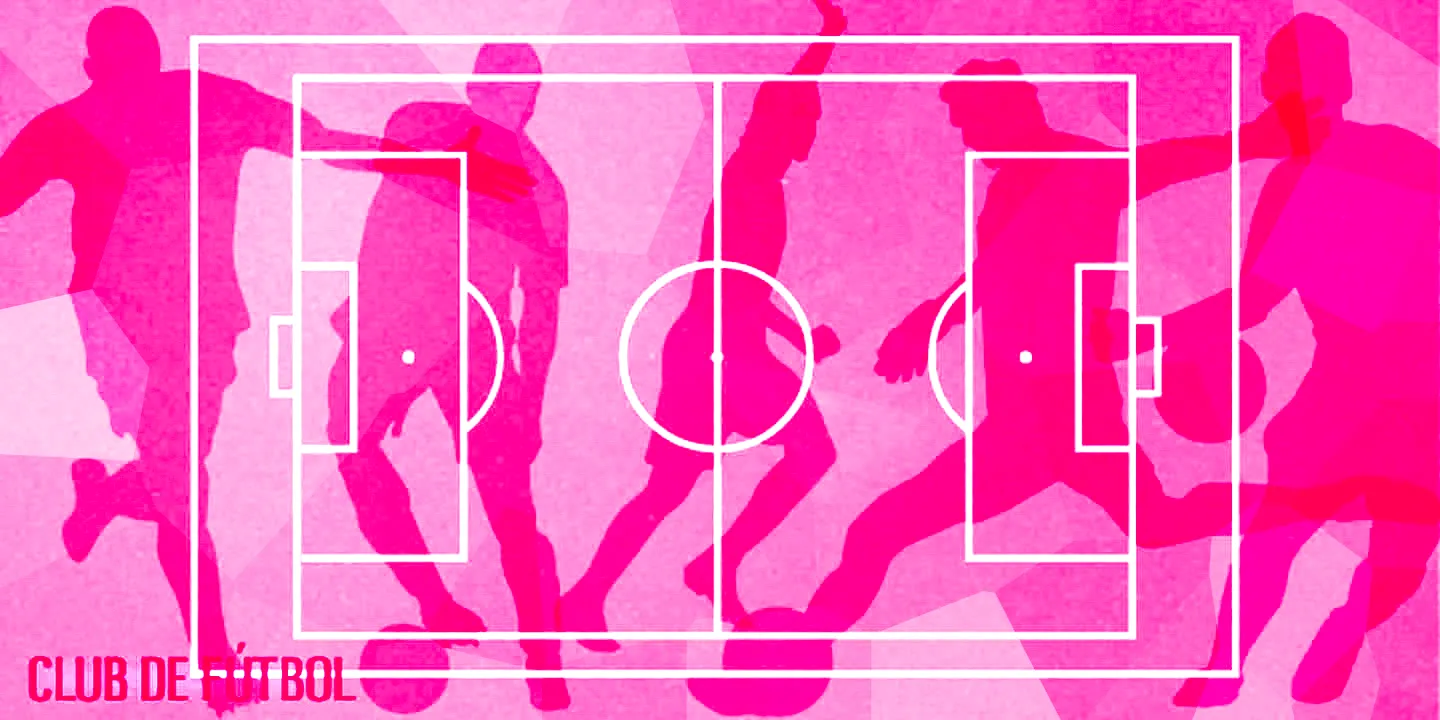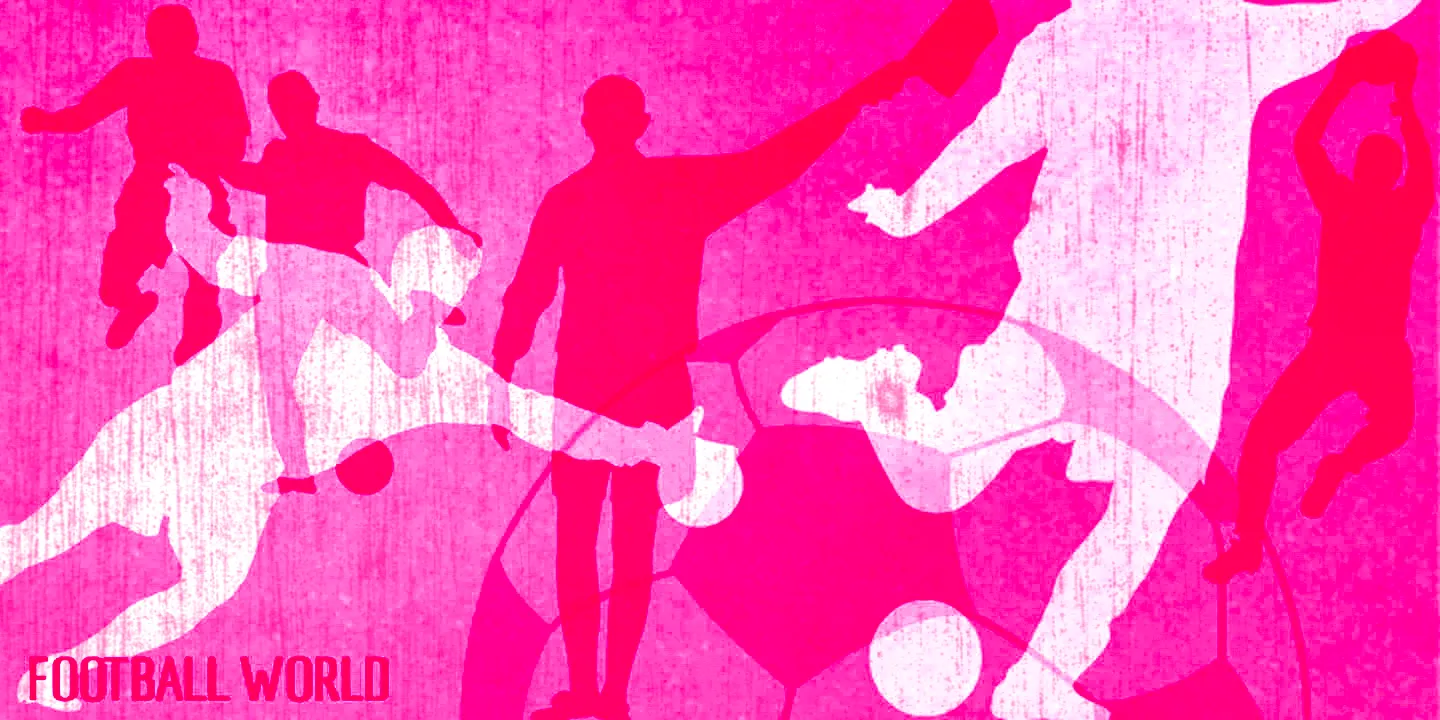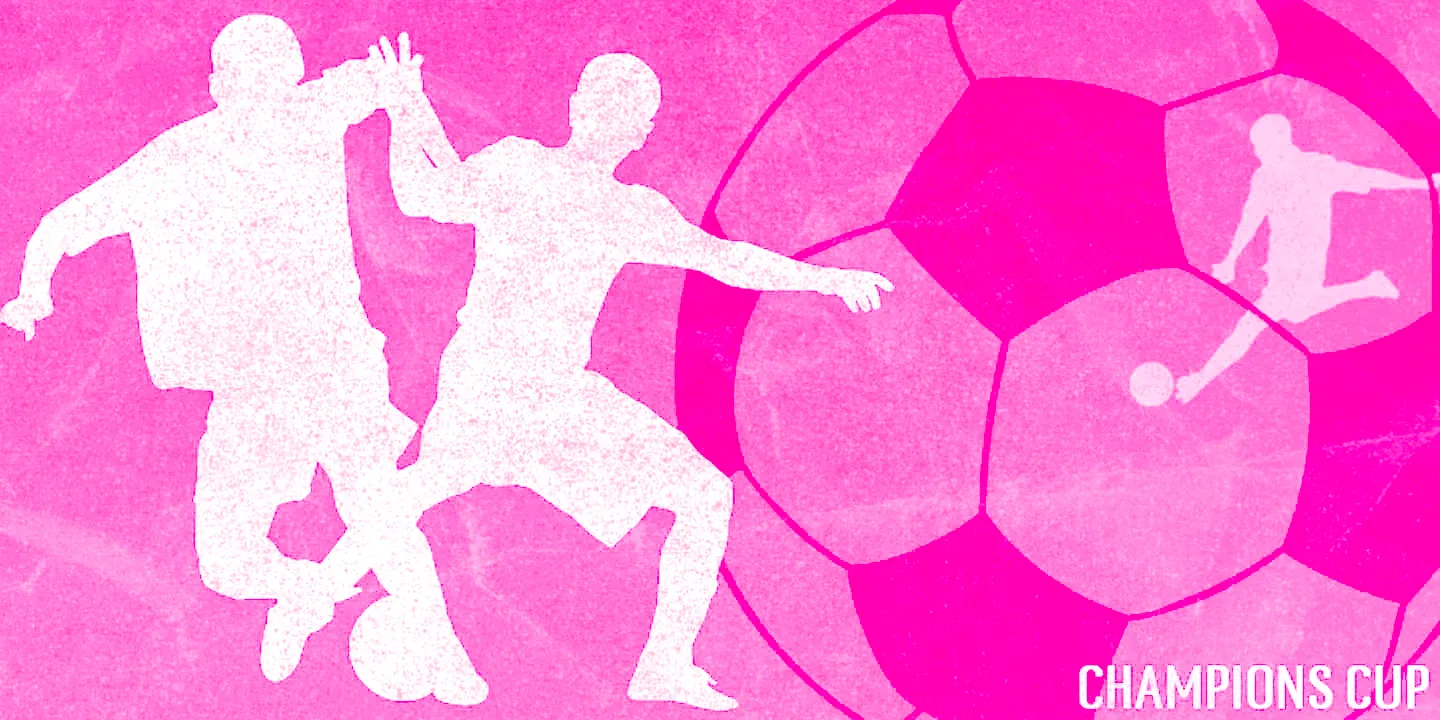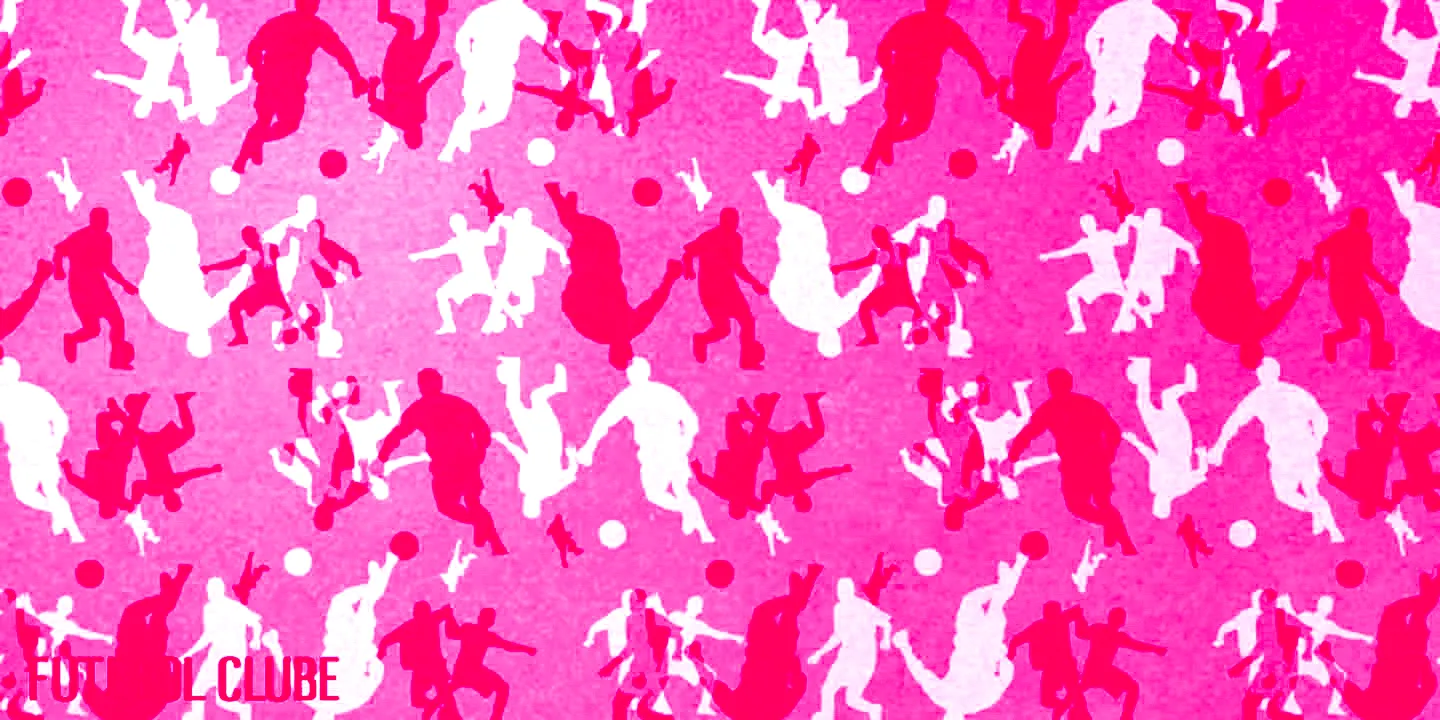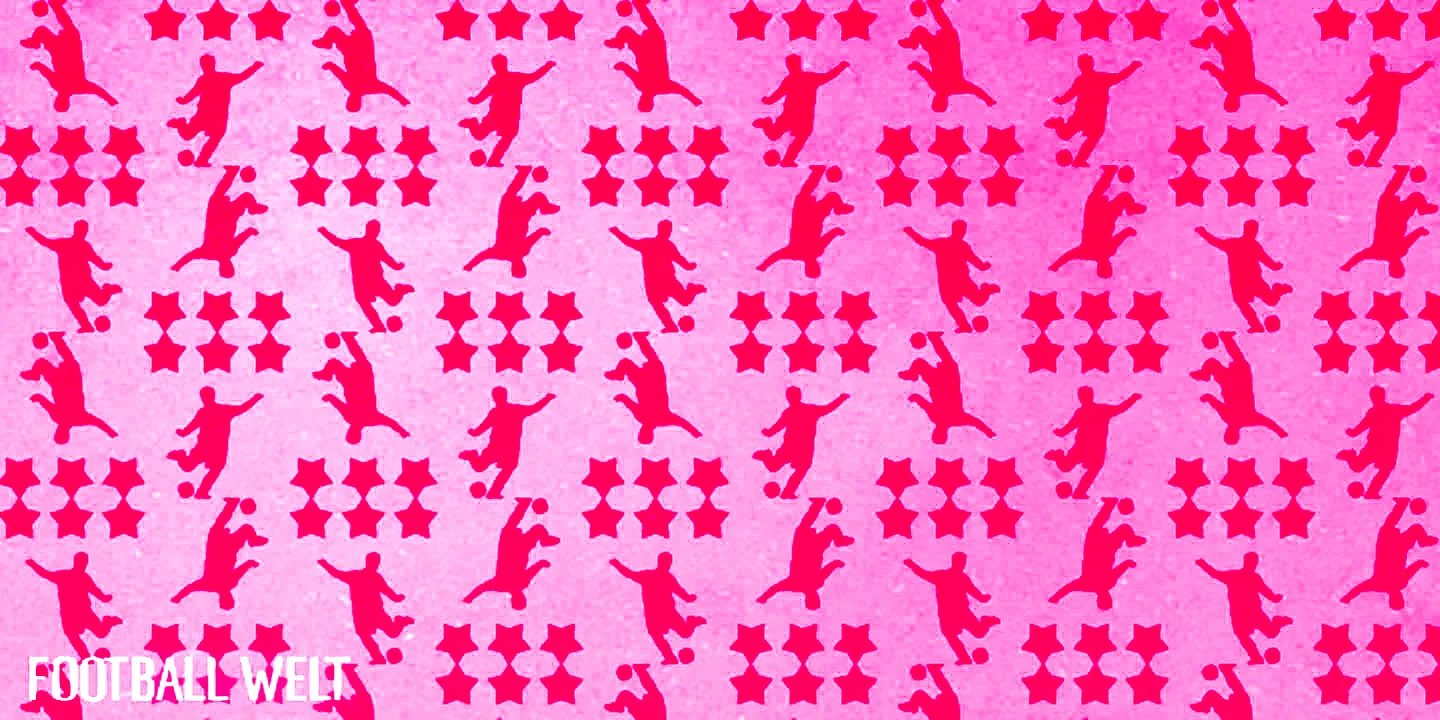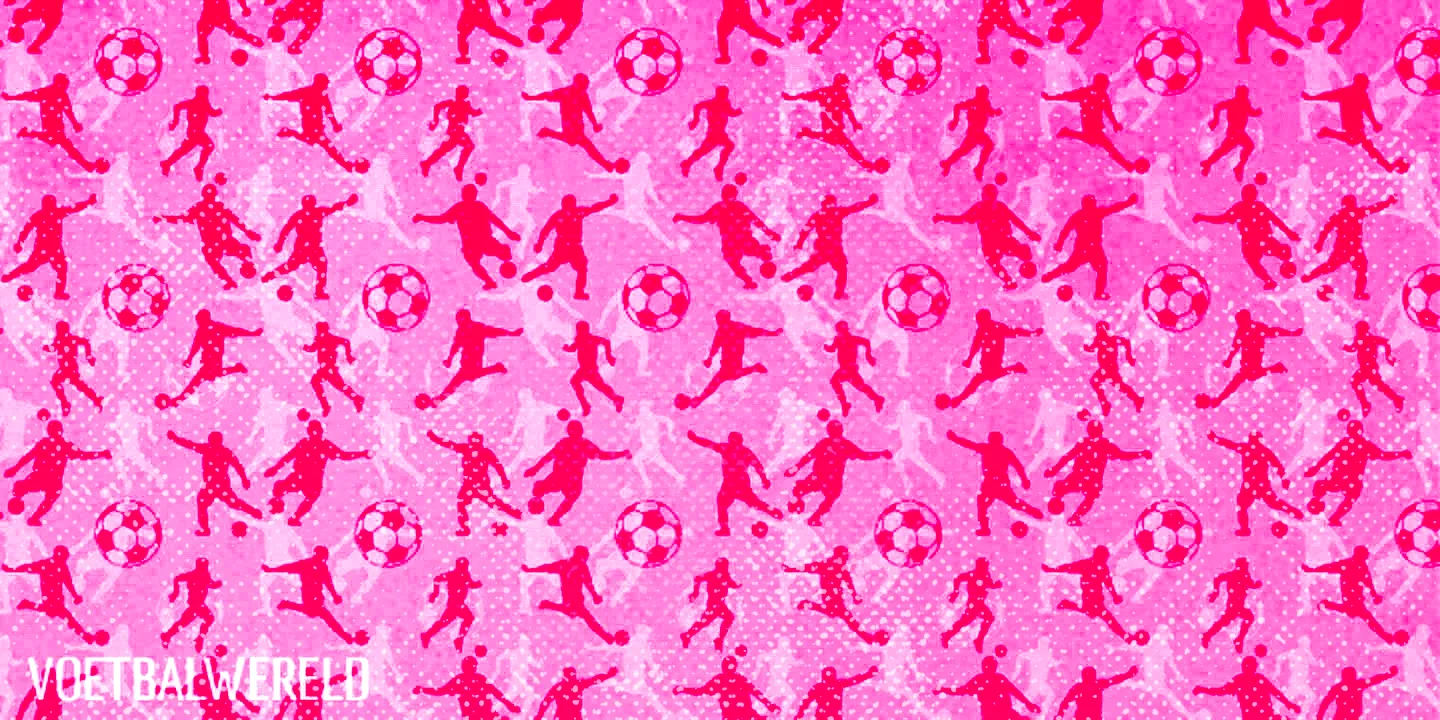
Football World
Football World is a handy collection of football illustrations and patterns — that’s soccer for those who are stateside. Use it for stickers, badges, signage, posters, infographics, merchandising, and anywhere else you need an illustrative way to say “football” immediately.